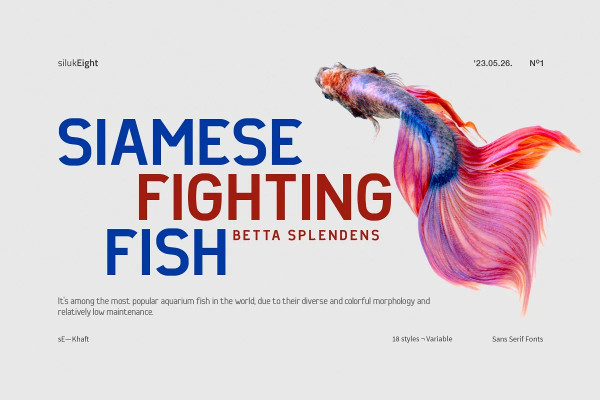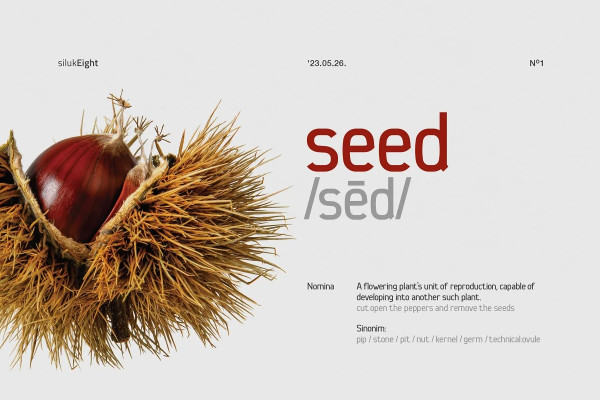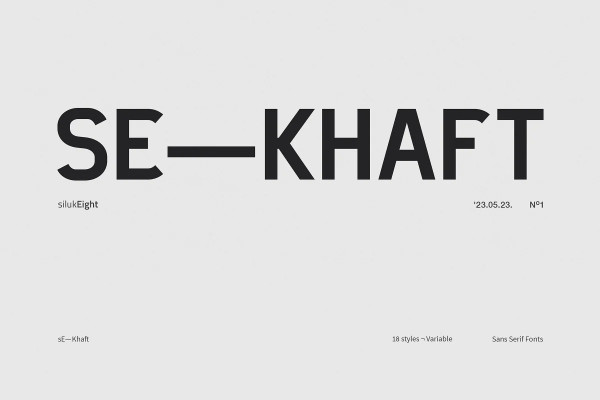
SE—Khaft Font
SE—Khaft Font, an exquisite and versatile sans-serif font that exudes a perfect blend of modernity and sophistication. With its clean lines and graceful curves, sE-Khaft offers a touch of elegance to any design project. Whether you’re working on luxury branding, editorial layouts, or upscale packaging, this font shines with its timeless appeal. Its extensive set of alternate characters and ligatures provide endless design possibilities, allowing you to create unique and captivating typographic compositions that leave a lasting impression.